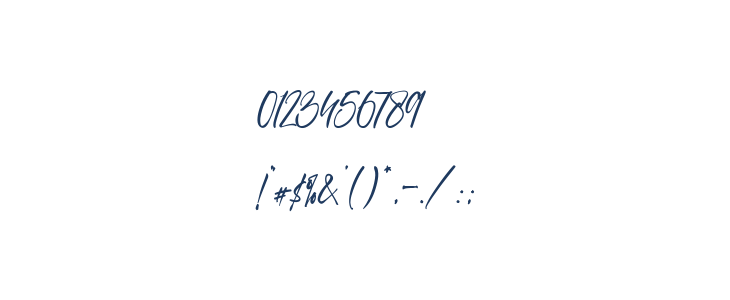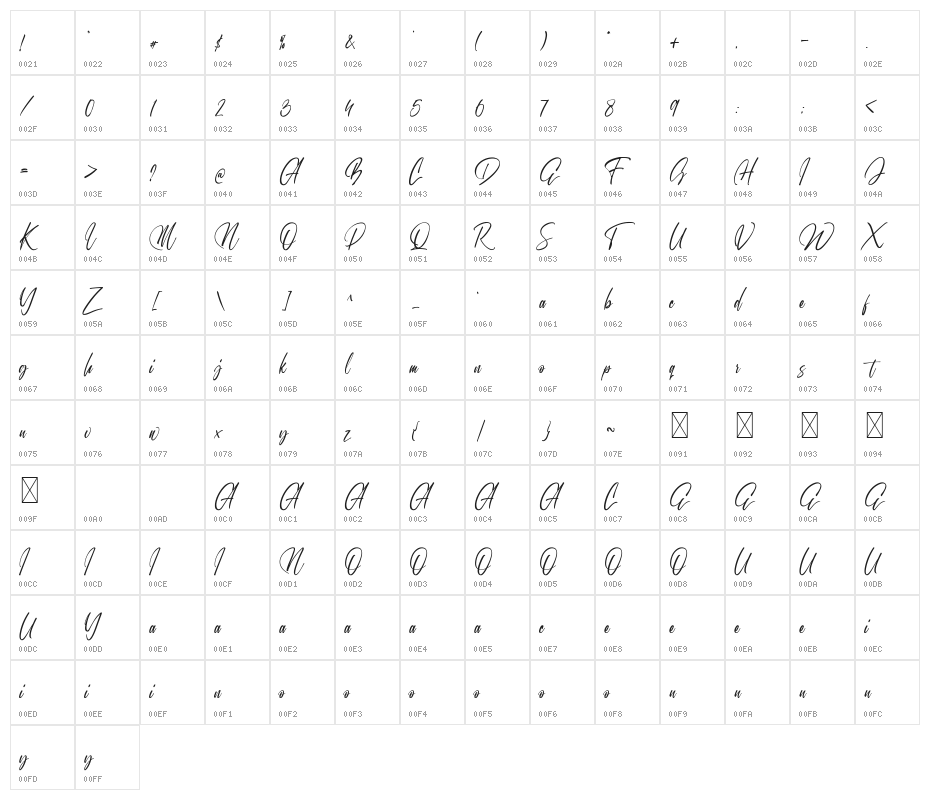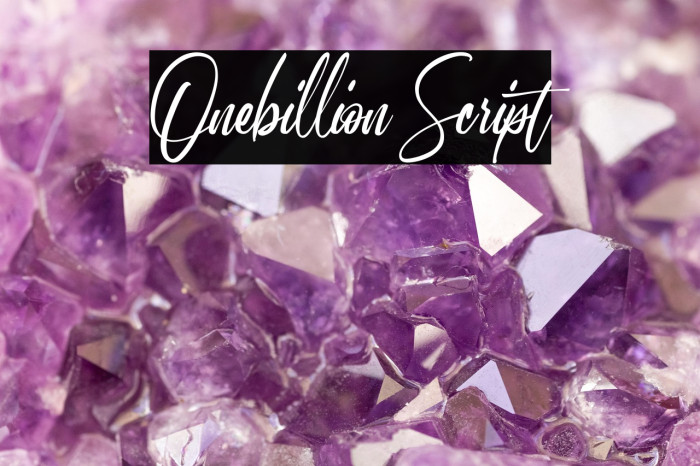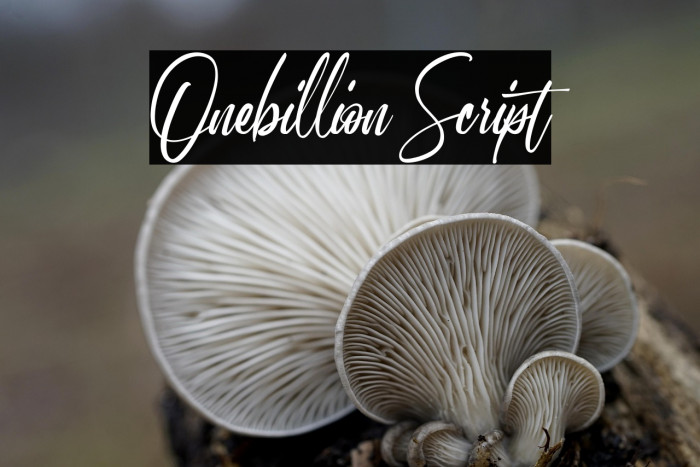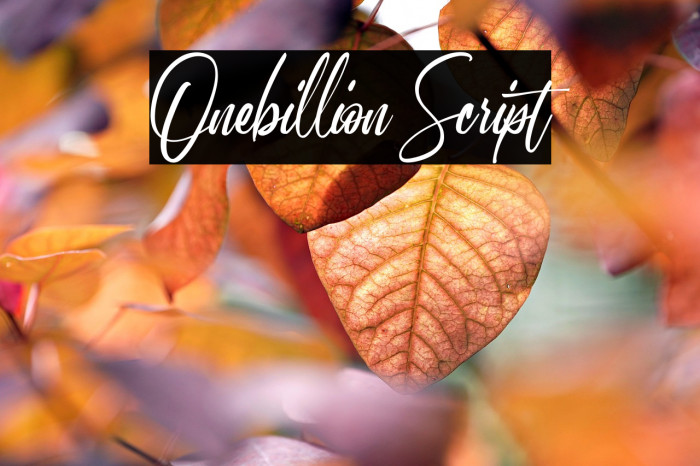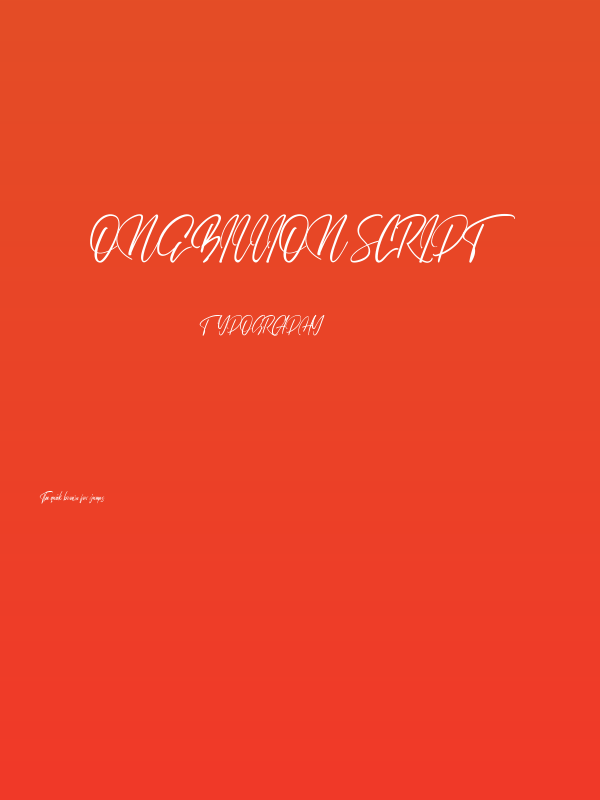
Onebillion Script Font
Onebillion Script Description
This elegant script font features flowing, interconnected letters with a calligraphic style. The uppercase characters are bold and sweeping, while the lowercase letters maintain a consistent fluidity, enhancing the overall graceful appearance. The numerals are designed with a similar flair, ensuring uniformity throughout. Special characters are included, maintaining the font's sophisticated aesthetic. The strokes vary in thickness, providing a dynamic contrast that adds to its visual appeal. This font is perfect for projects that require a touch of elegance and sophistication.